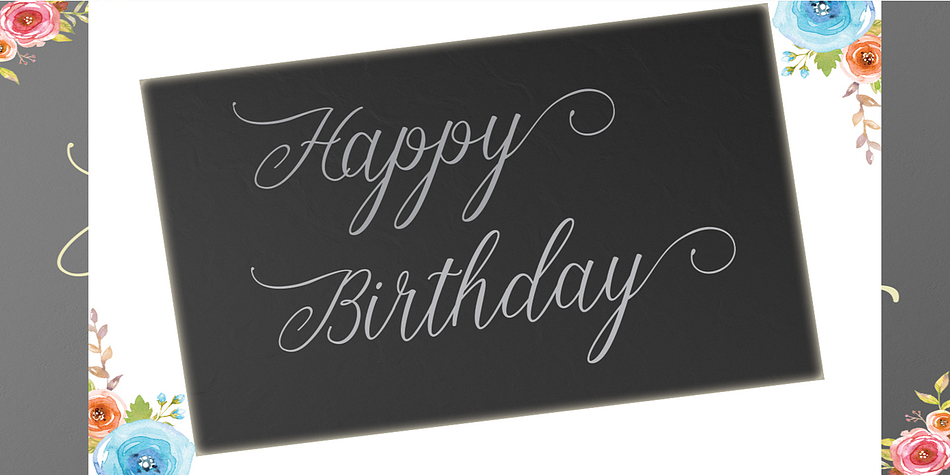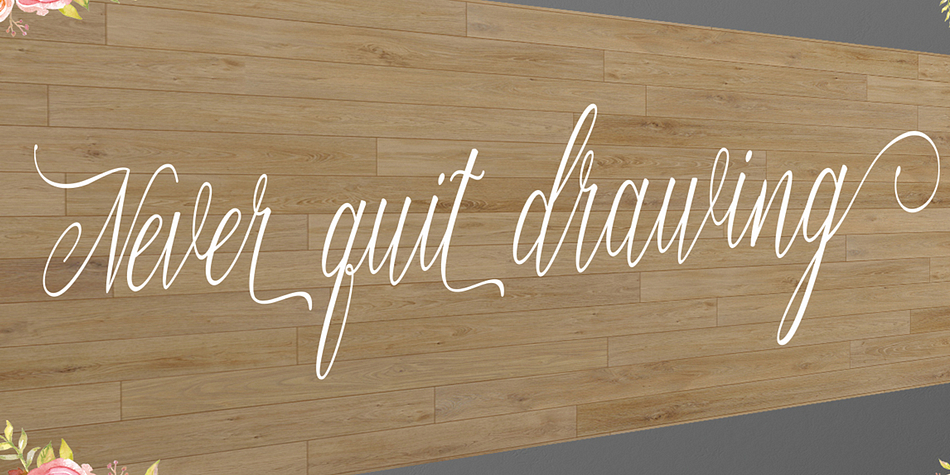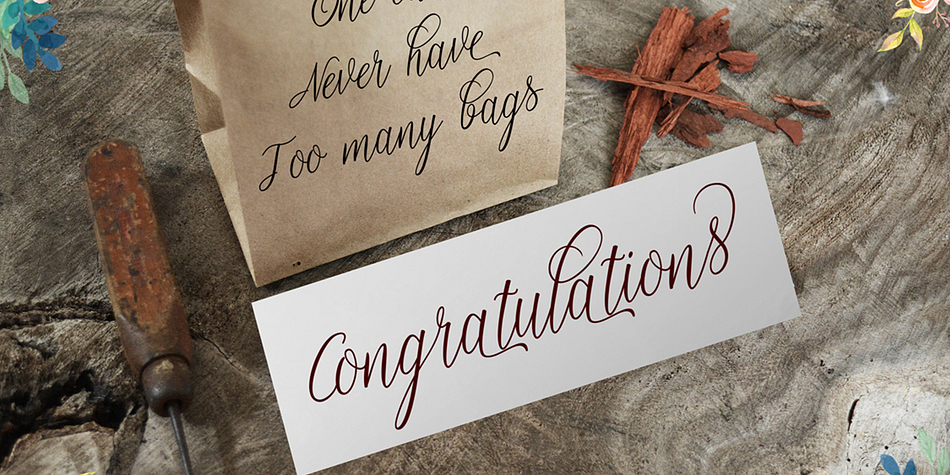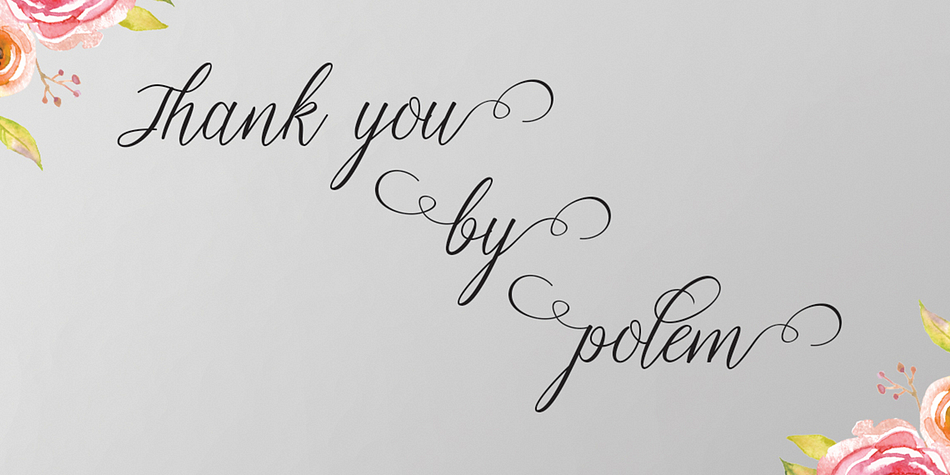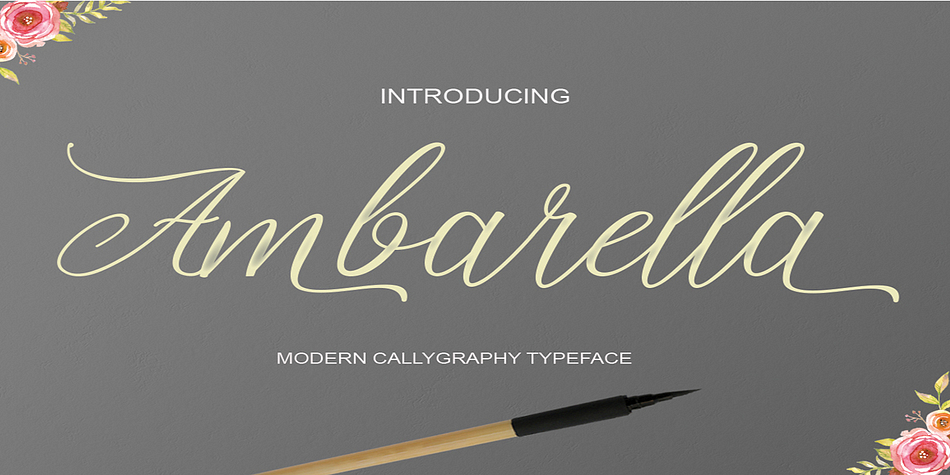
Ambarella is a script and modern calligraphy font published by pollem.Co.
Ambarella is a modern calligraphy font. It is a hand-made script and features unique forms of calligraphy. The writing style is very natural.
The Features of this fonts are:
Standart ligatures
Stylistic Alternates
Contextual Alternates
Stylistic sets
Swashes
Ambarella can be used for various purposes such as headings, logos, wedding invitations, T-shirt design, letterheads, signage, lables, news, posters, badges etc.